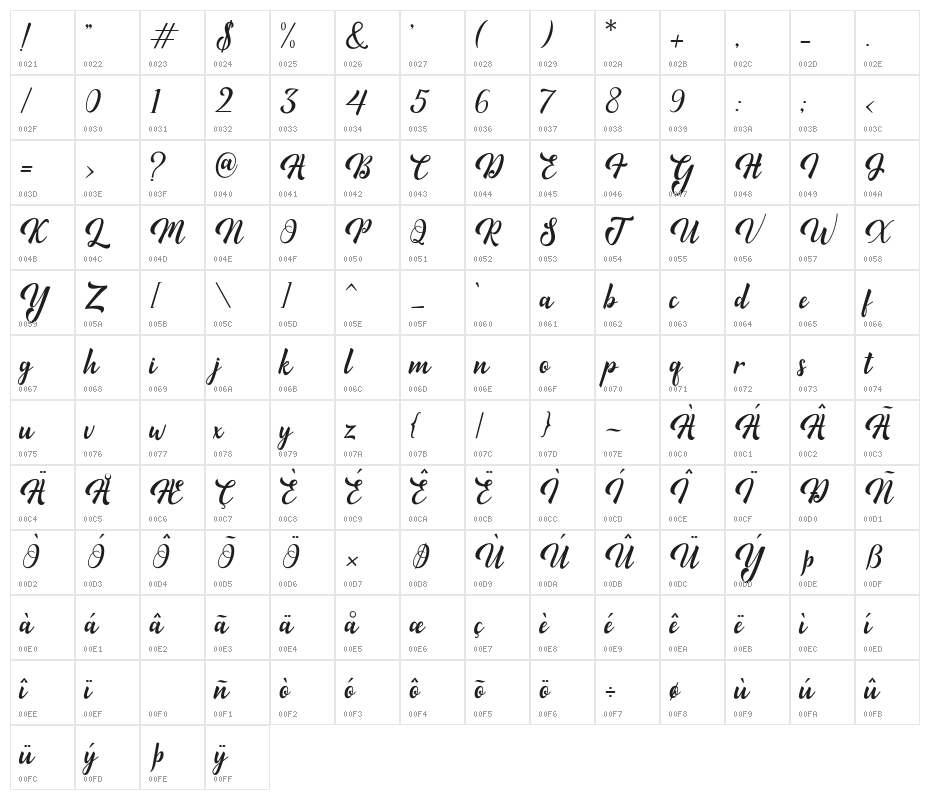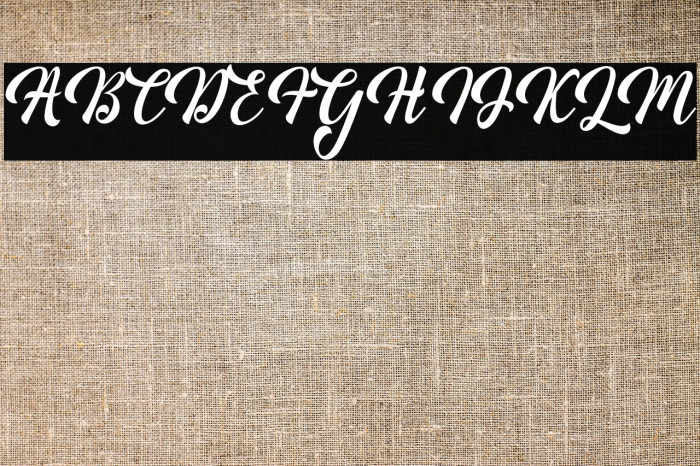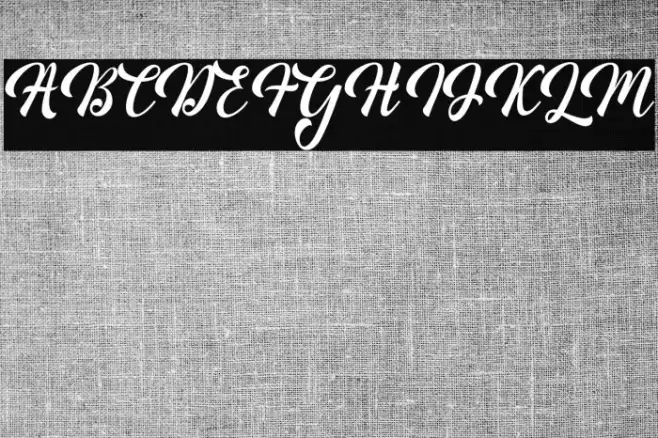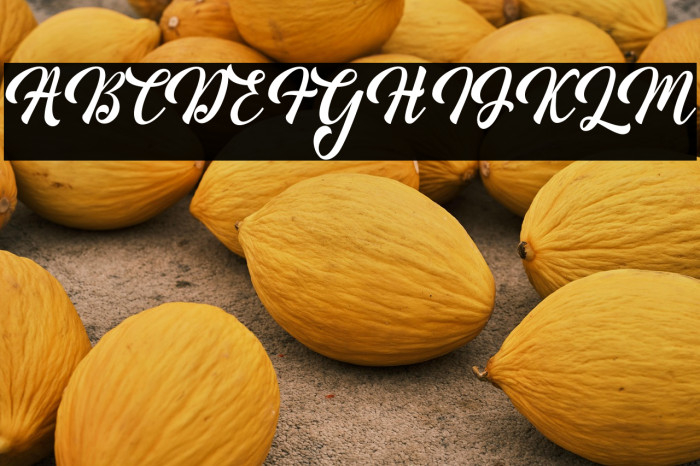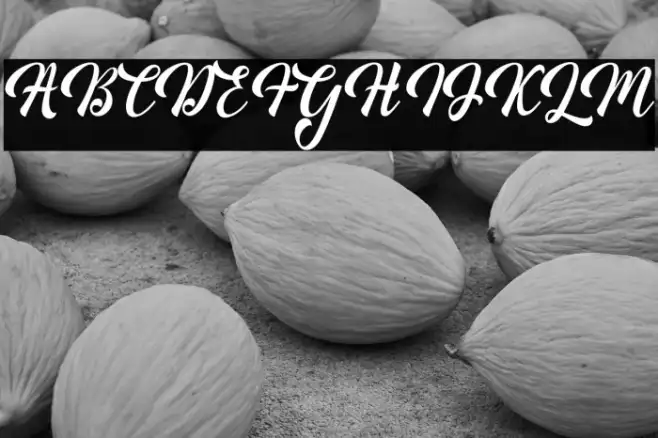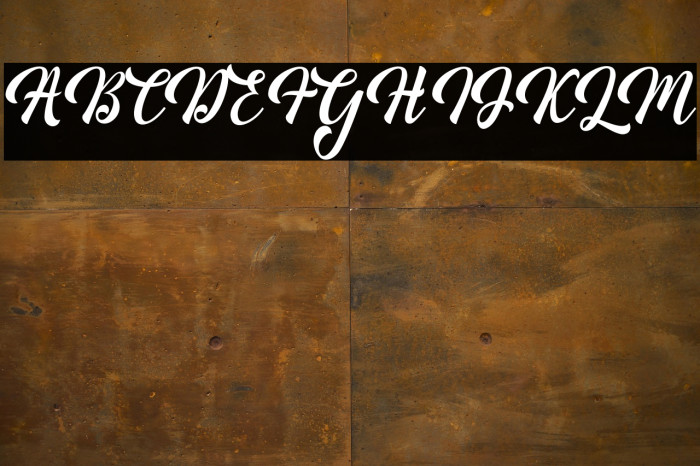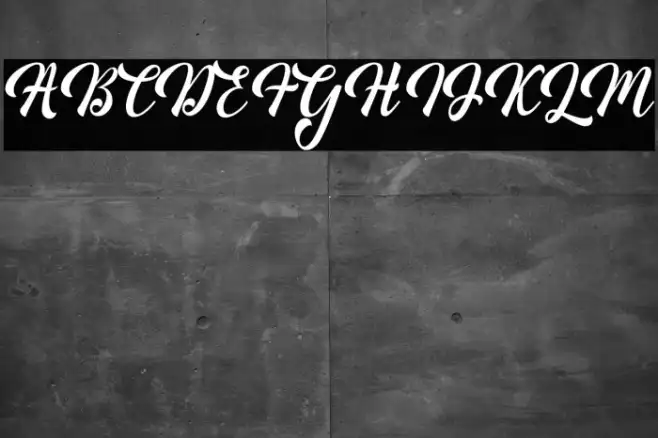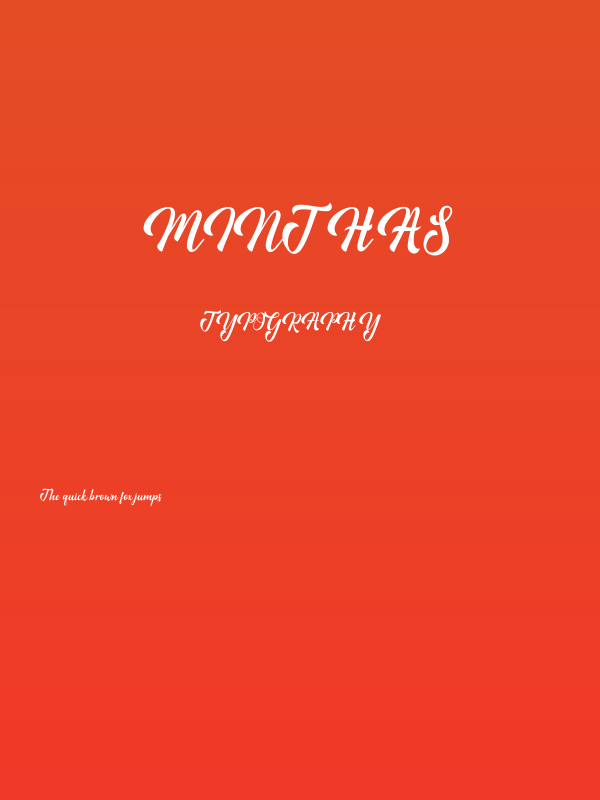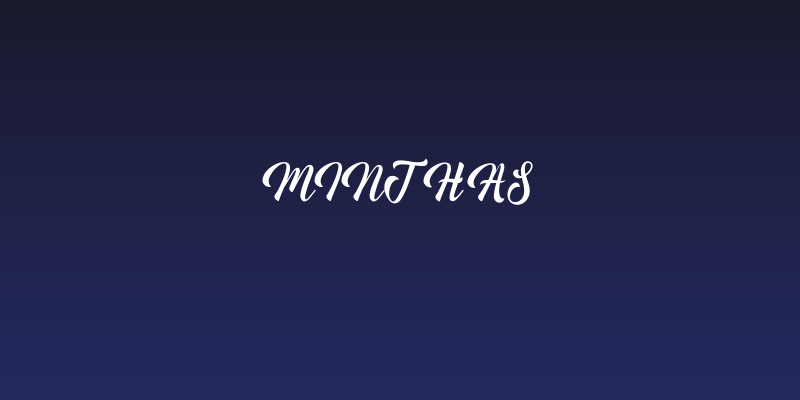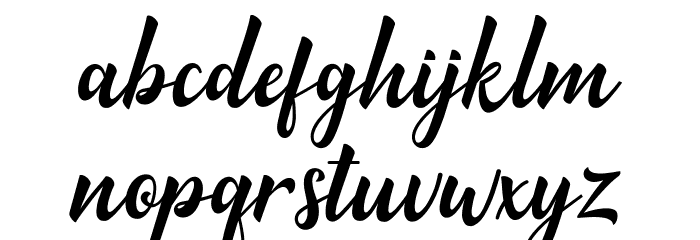
Minthas Font
Minthas Description
This font features an elegant script style with a flowing, cursive design that exudes sophistication and grace. The uppercase letters are characterized by their sweeping curves and intricate loops, while the lowercase letters maintain a consistent fluidity that enhances readability. The numerals are designed with a similar flair, ensuring they complement the overall aesthetic. Special characters are thoughtfully crafted to maintain the font's cohesive look. This font is ideal for projects that require a touch of elegance and style, such as wedding invitations, formal event programs, or luxury brand logos.
| Overall Style | Elegant, Sophisticated |
| Proposed Projects | Wedding invitations, luxury brand logos, formal event programs, elegant stationery. |